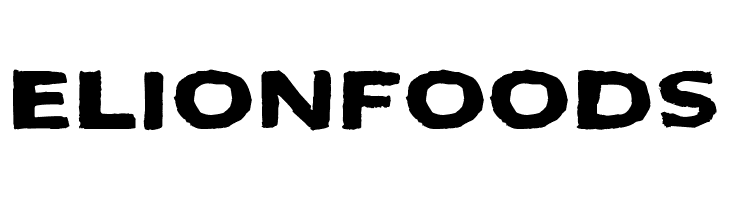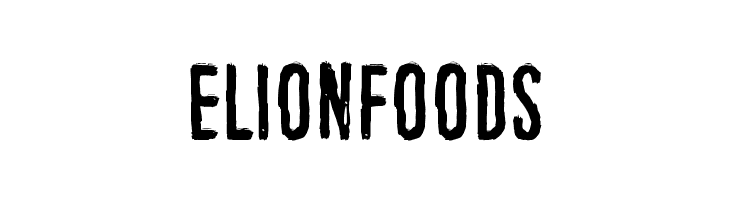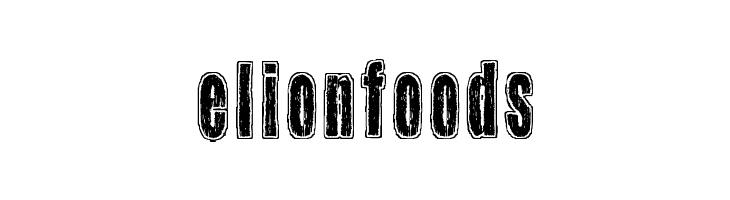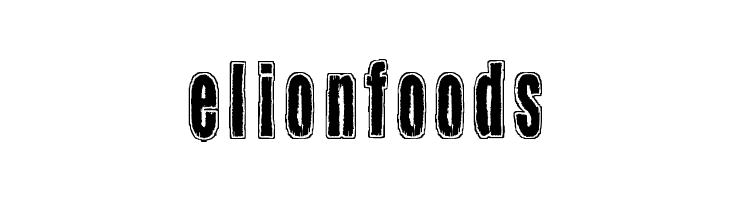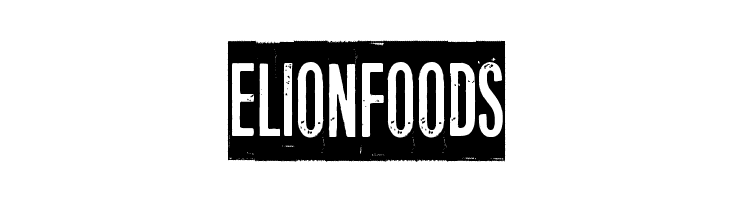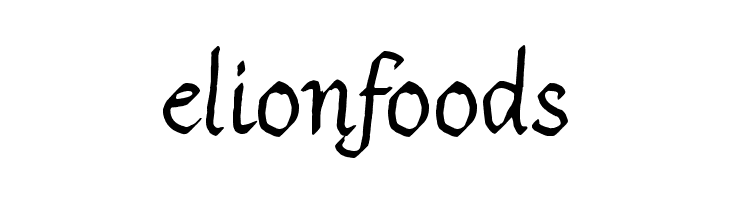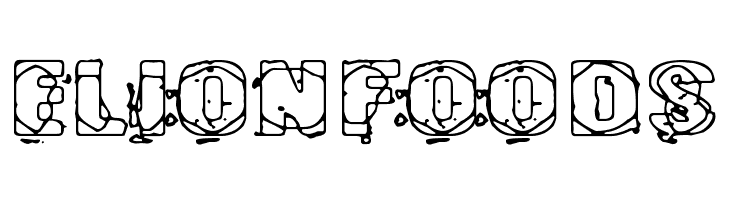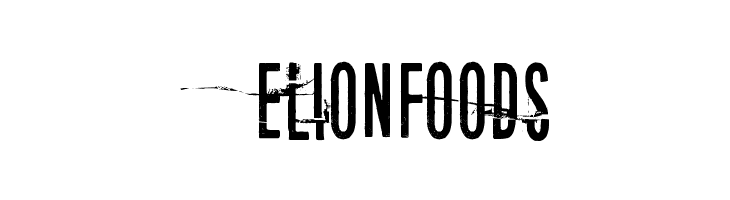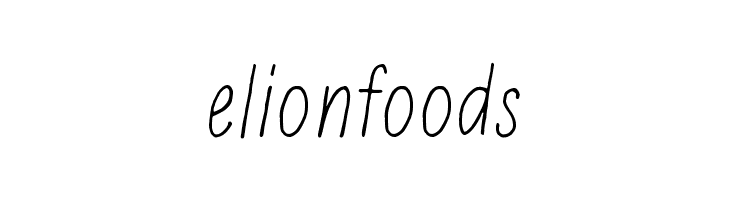
• Flea Market Finds
A bold, hand-drawn font with a vintage, rustic charm.
• Bactosaurus
A bold, rugged font with a hand-drawn, distressed appearance.
• Black Owl
A bold, distressed font with a hand-painted look, ideal for impactful designs.
• Takapiru
A bold, distressed font with a vintage, rugged texture.
• Takapiru2
A bold, distressed font with a vintage, rugged appearance.
• Long distance call
A bold, distressed font with a vintage, grunge texture.
• Sister Morphine
A hand-drawn, playful font with varying stroke widths and a dynamic appearance.
• Cybereye
A bold, playful font with a futuristic, cybernetic design.
• Disturbo
A bold, distressed font with a grunge, urban aesthetic.
• Hidden meanings Italic
A handwritten, italic font with a casual and fluid style.